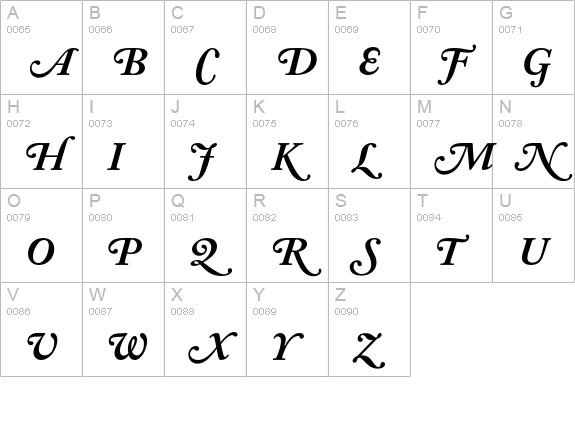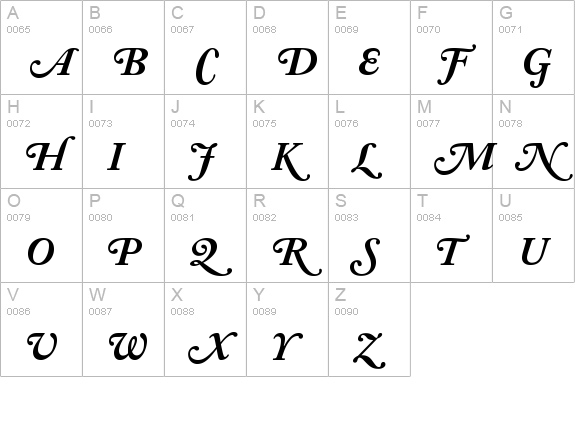
Adobe Caslon Swash Bold Italic Font Details
Adobe Caslon Swash Bold Italic is a strong, high-contrast, italic variant in the Adobe typeface family \xE2\x80\x94 well suited to headlines, attention-grabbing titles, and strong calls-to-action.
Adobe Caslon Swash Bold Italic is a stunning and elegant font that exudes sophistication and class. With its bold and italic swash detailing, this font adds a touch of luxury and style to any design project. The ornate swashes and intricate details make it perfect for creating eye-catching headlines, invitations, and branding materials. What makes Adobe Caslon Swash Bold Italic even more appealing is that it is available for free download at FontsMarket.com. This means you can easily access this beautiful font and incorporate it into your designs without any cost. Whether you're working on a personal project or a professional one, Adobe Caslon Swash Bold Italic is sure to elevate your design to the next level. Download it now and add a touch of elegance to your creations!